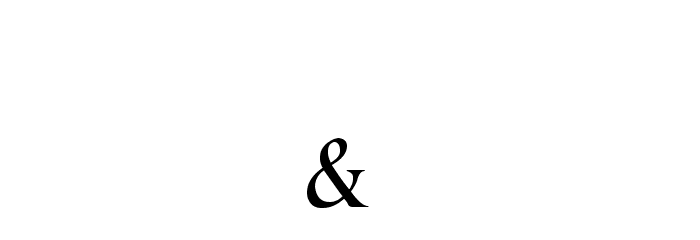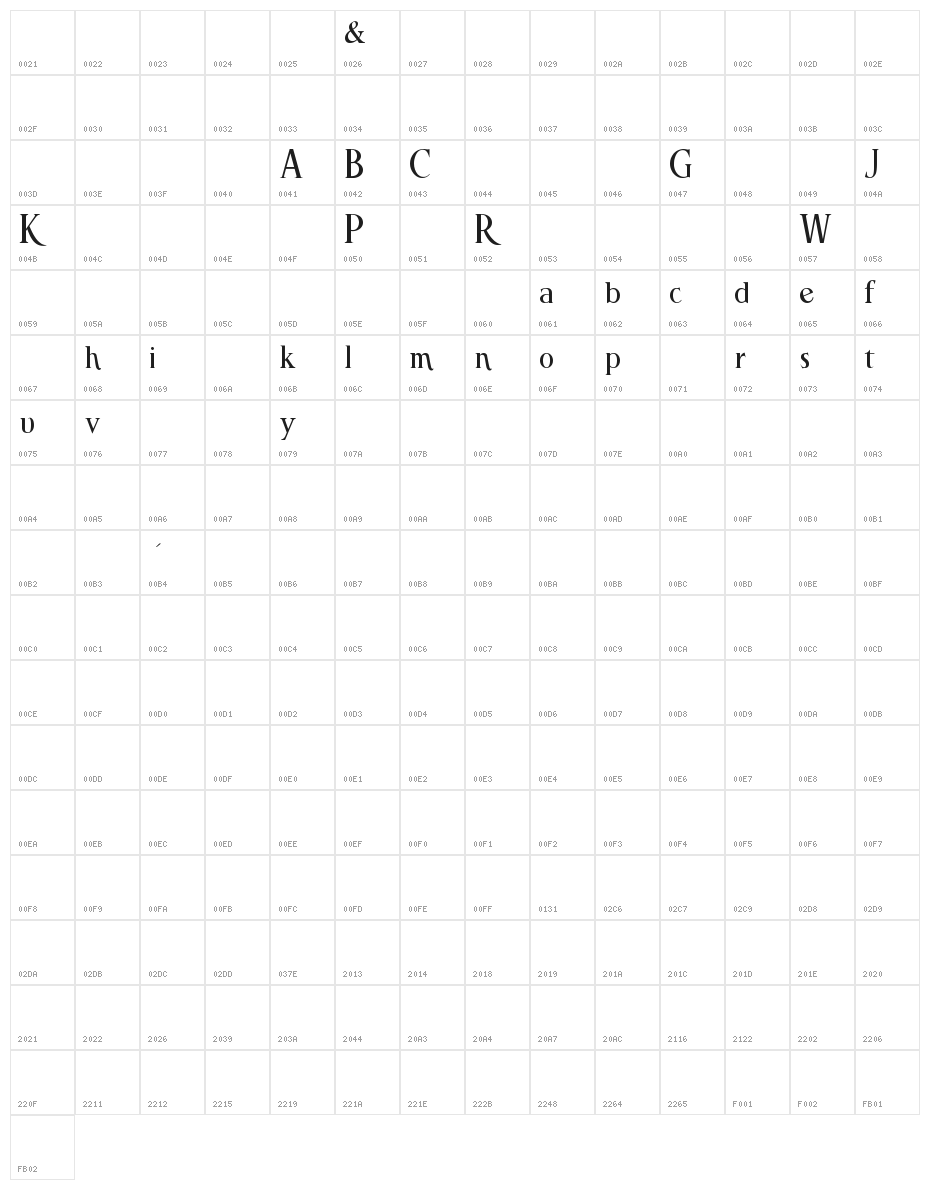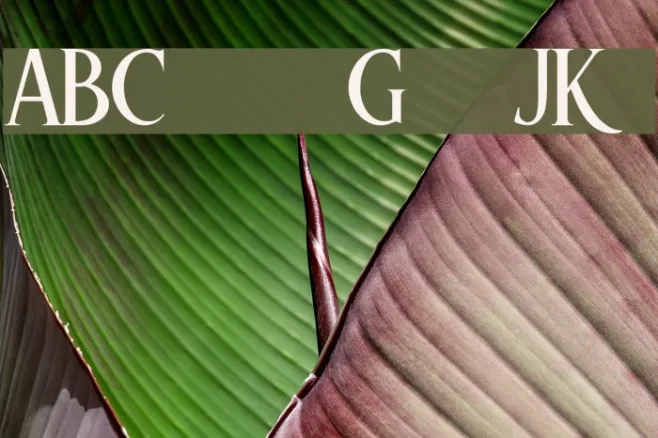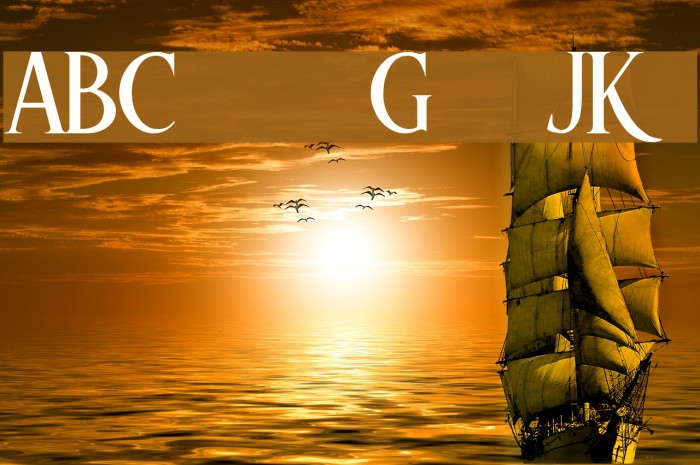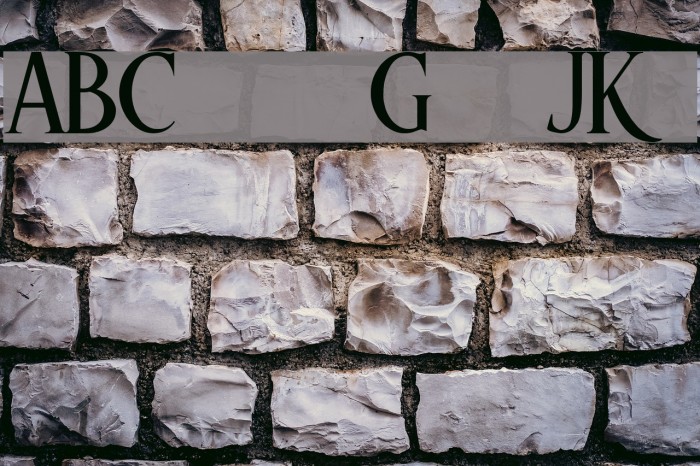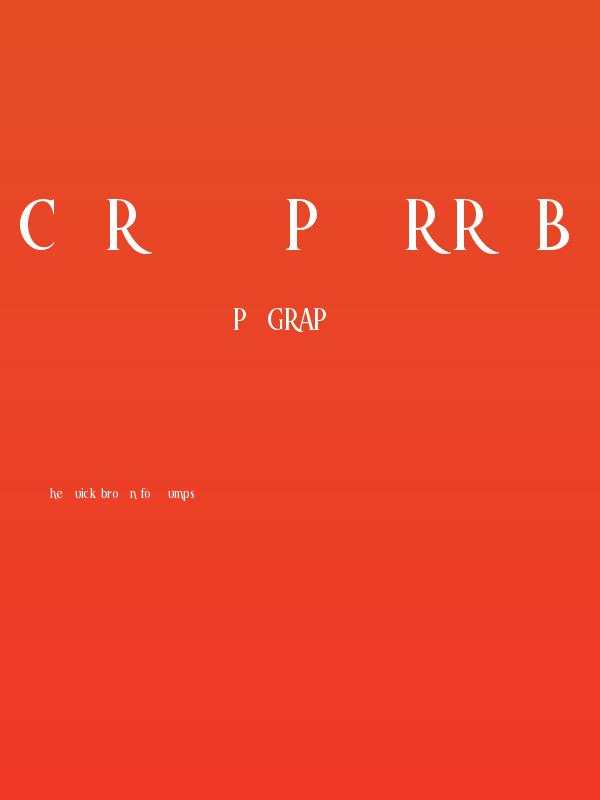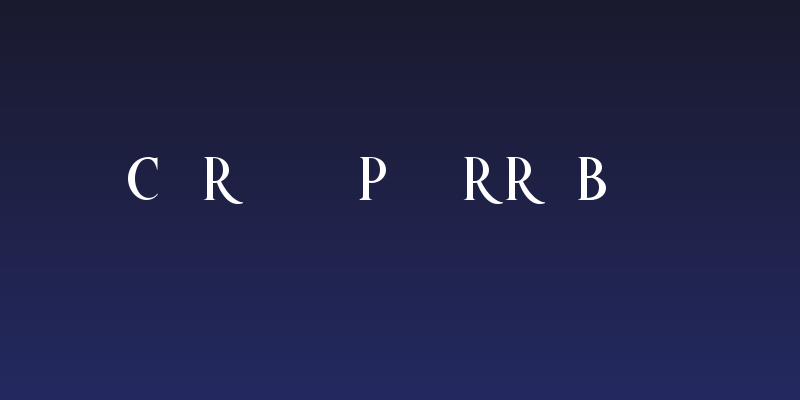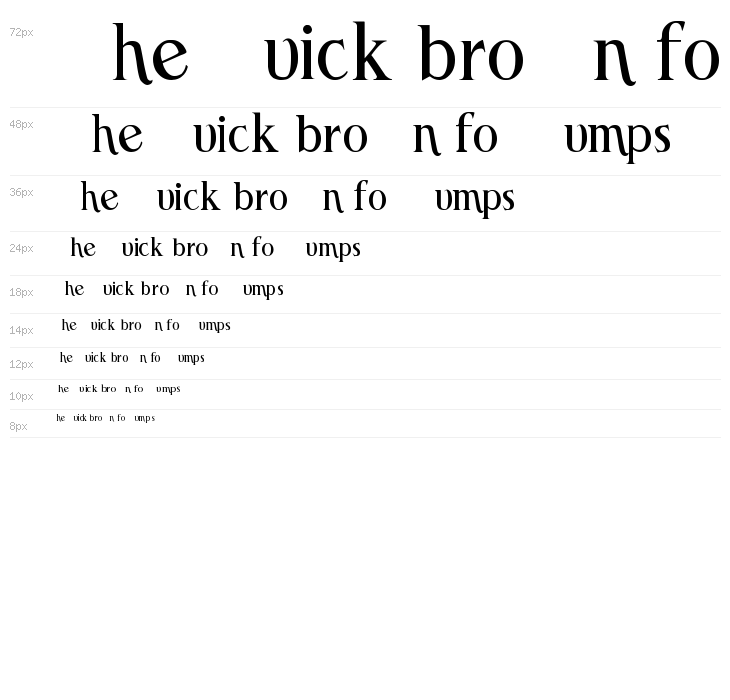
Christopher Robin Font
Christopher Robin Description
This font features a unique blend of classic and modern elements, characterized by its elegant and slightly whimsical design. The uppercase letters exhibit a traditional serif style with a touch of flair, particularly noticeable in the curved strokes of letters like 'G' and 'J'. The lowercase letters maintain a consistent style, with some characters like 'a' and 'e' showcasing a more rounded and open form. The overall appearance is sophisticated yet approachable, making it suitable for a variety of design contexts. The ampersand is particularly distinctive, with a flowing, almost calligraphic quality that adds a touch of elegance.
| Use Case | Headlines, Logos, Editorial design |
| Proposed Projects | Ideal for book covers, wedding invitations, branding projects, and editorial design where a touch of elegance is desired. |